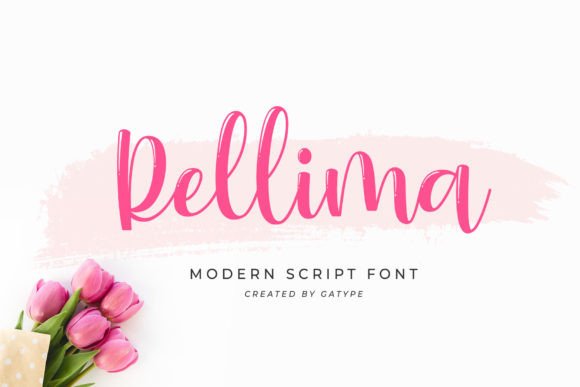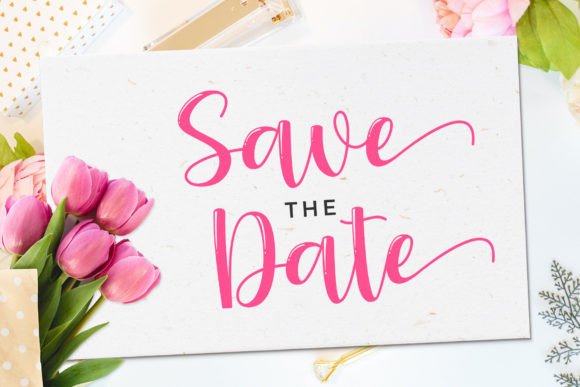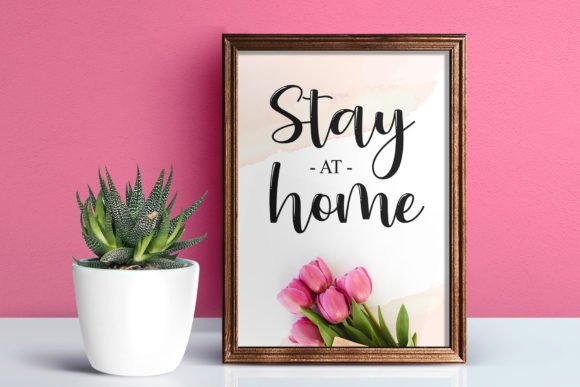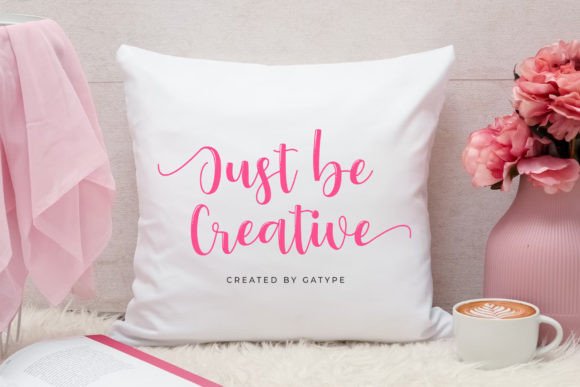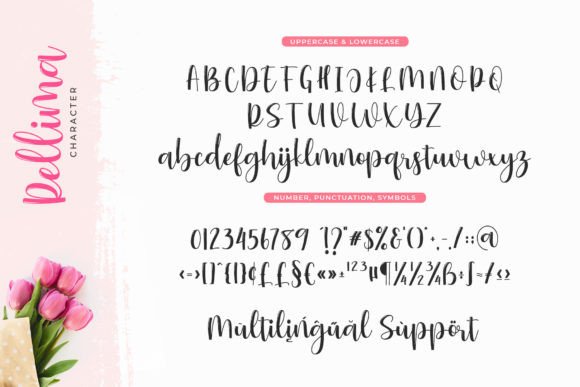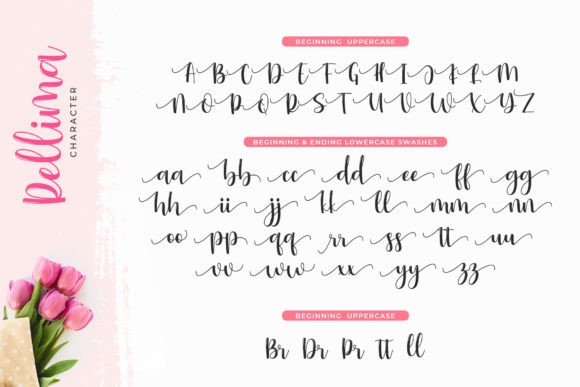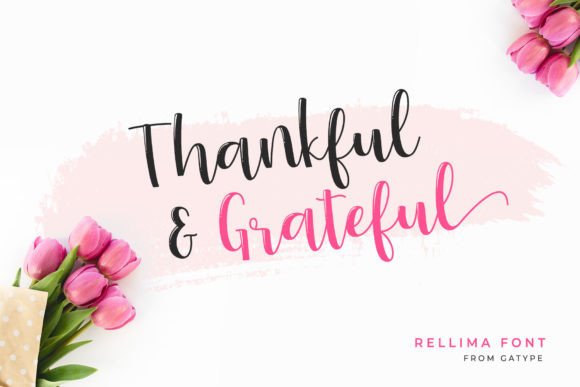
Rellima Font
Rellima Font Download – Modern Dynamic Calligraphy Script
The Rellima Font download is a dynamic calligraphy typeface created with elegance and versatility in mind. With its stylish strokes and smooth flow, this font is perfect for both personal and professional designs. Because it is PUA encoded, you can easily access all glyphs and swashes, giving you endless creative options.
Modern and Dynamic Calligraphy Style
Rellima features flowing curves and strong strokes that create a modern yet timeless handwritten look. As a result, it offers a natural calligraphy effect while staying easy to read. In addition, its dynamic design makes it highly adaptable for multiple creative needs.
Perfect for Invitations and Signatures
From wedding invitations to personal signatures, this font brings sophistication and elegance. It gives text a unique personality that makes projects stand out. Therefore, it is an excellent option for stationery and formal designs.
Rellima Font Download for Logos and Posters
The Rellima Font download also works beautifully for logos, posters, and letterheads. Its stylish calligraphy style ensures branding and promotional materials look professional and memorable.
Versatility Across Creative Projects
From labels and signage to newsletters and social media posts, Rellima adapts seamlessly. In addition, its PUA encoding gives designers the flexibility to explore alternate swashes and stylistic details.
Readability and Professional Balance
Some calligraphy fonts may look decorative but compromise readability. However, Rellima maintains clarity while keeping its artistic flair. As a result, it is effective for titles, marketing content, and detailed design work alike.
Why Add This Calligraphy Typeface to Your Collection?
The Rellima Font download is versatile, stylish, and user-friendly. In other words, it works for invitations, posters, logos, signatures, and branding campaigns alike. Finally, it is a calligraphy script that adds beauty, charm, and professionalism to every project.